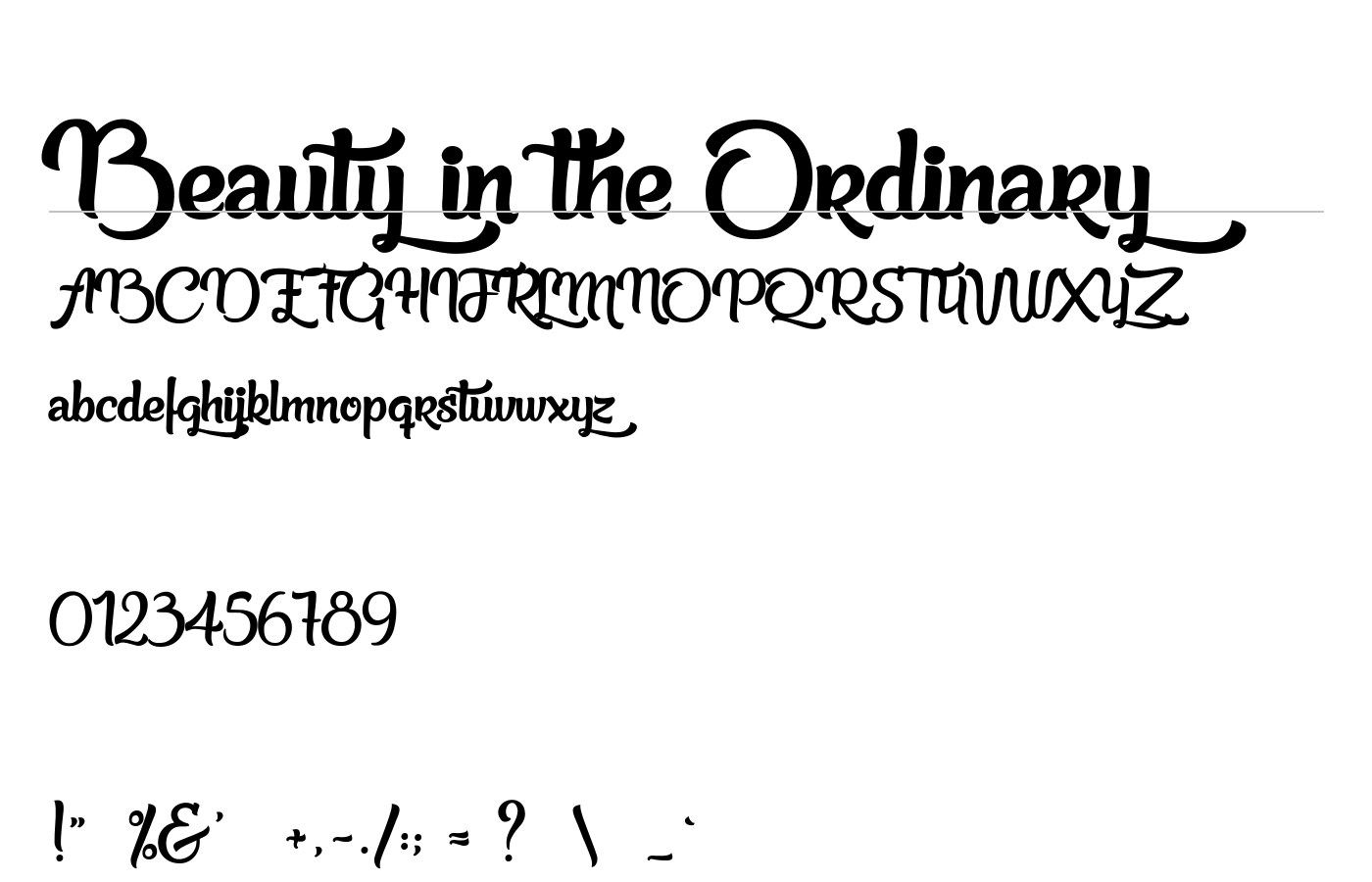
Beauty in the Ordinary is a charming script font with a calligraphic flair, featuring smooth, flowing strokes and elegant swashes that add a touch of whimsy. Its moderate weight and balanced contrast make it ideal for creating inviting, graceful designs that feel both sophisticated and approachable. Perfect for branding, invitations, and headlines, this font brings a playful yet refined personality to projects seeking a warm, stylish expression.
Beauty in the Ordinary Font
About Beauty in the Ordinary Font
| Font family | Beauty in the Ordinary Font |
| Designer | C.T.B |